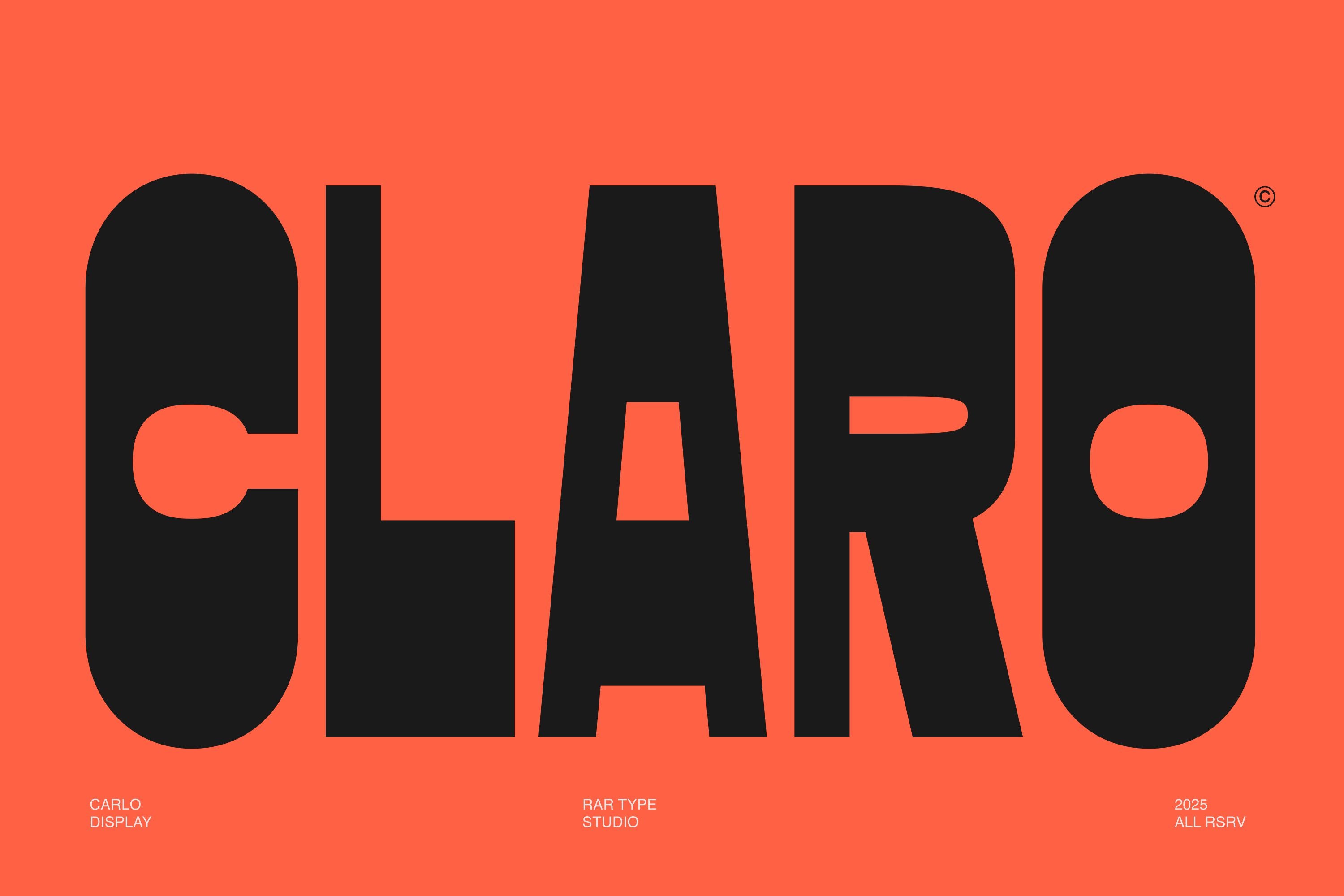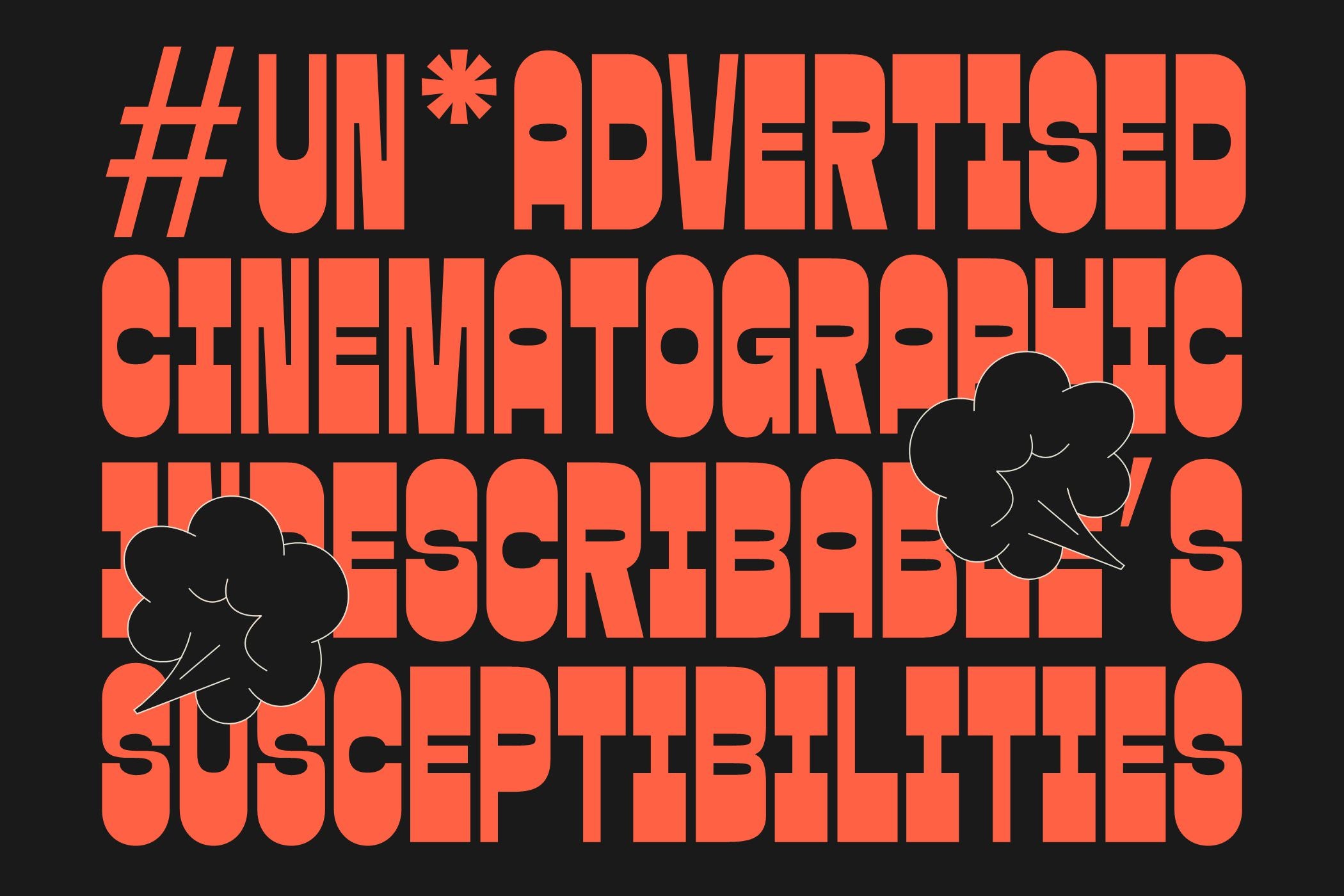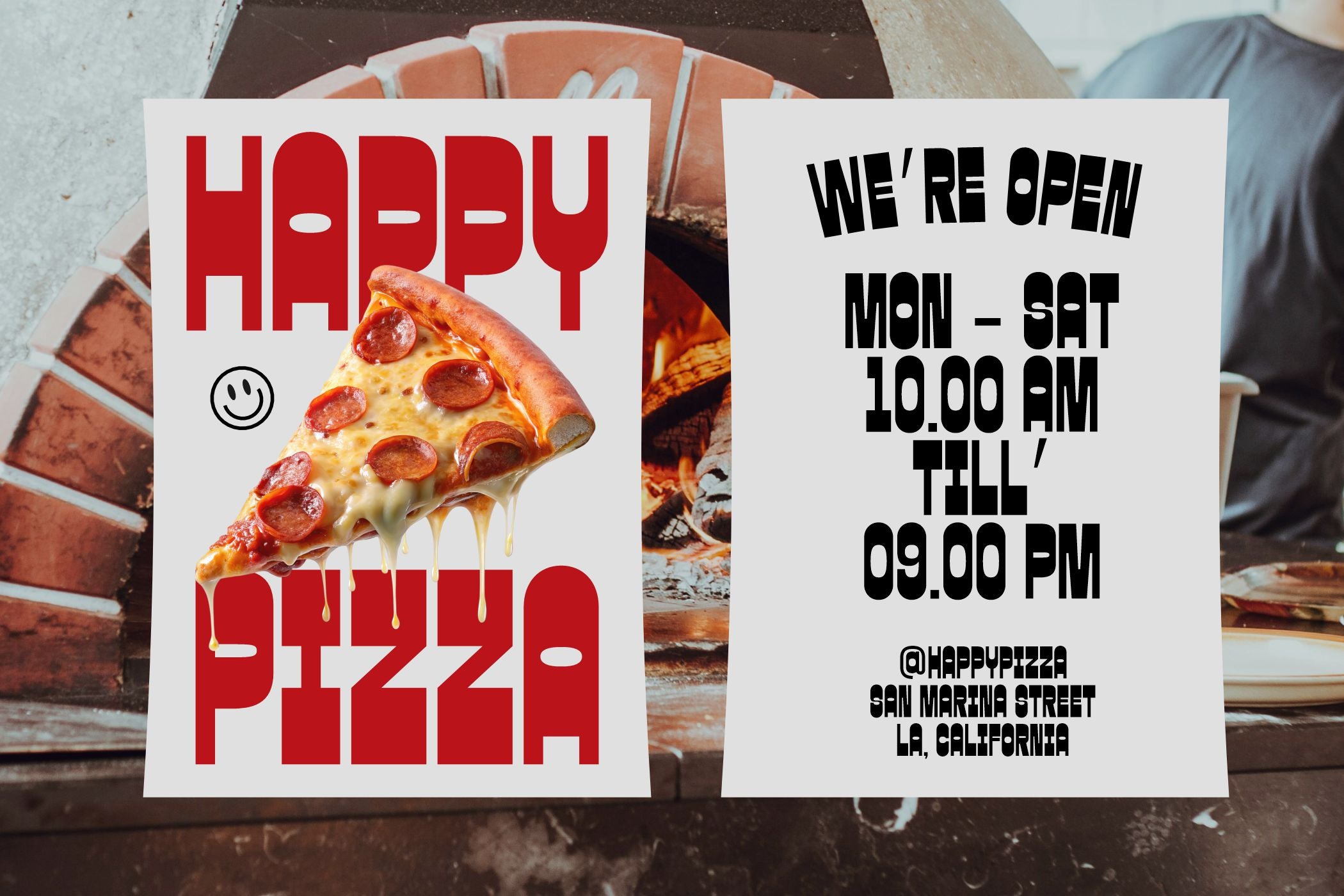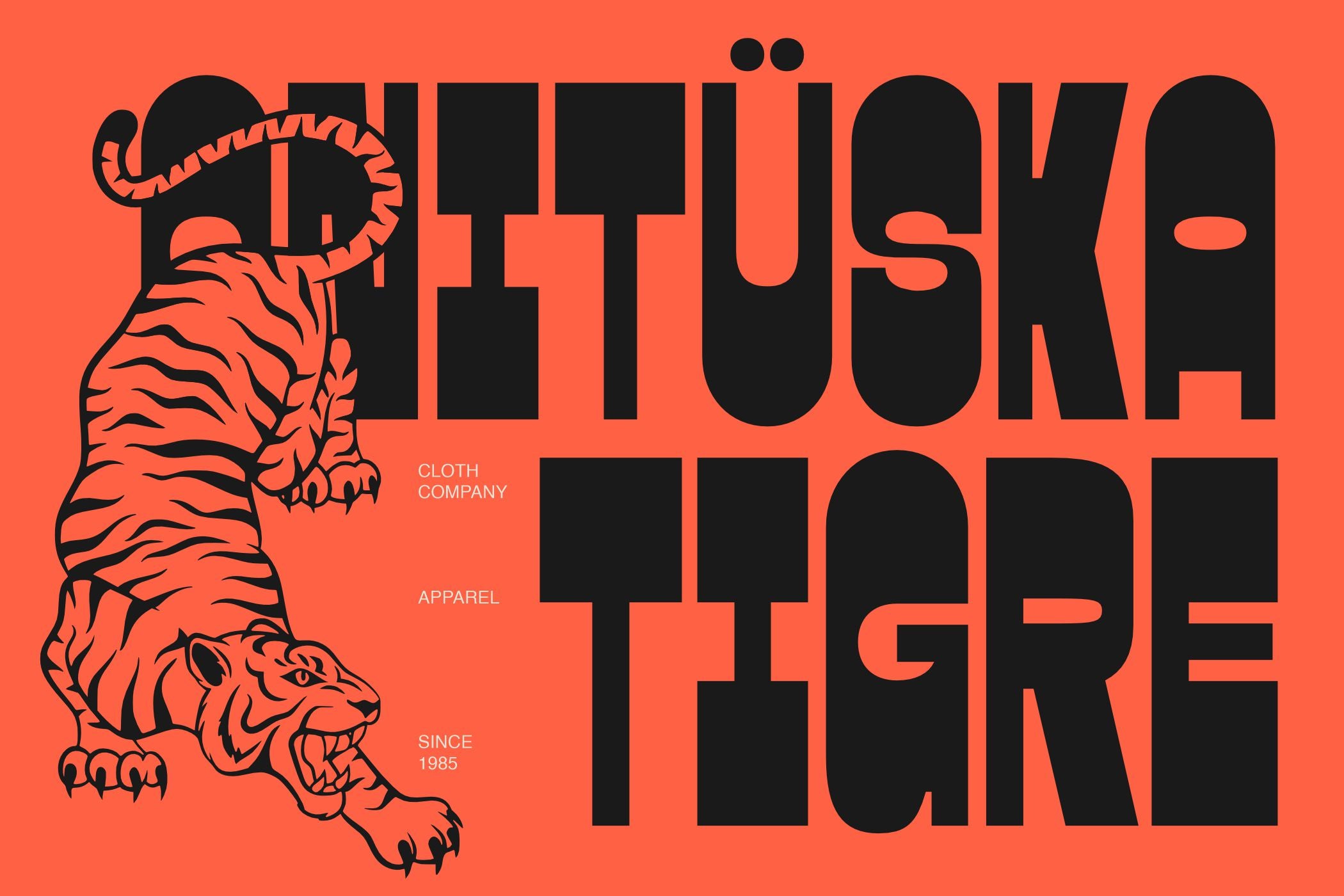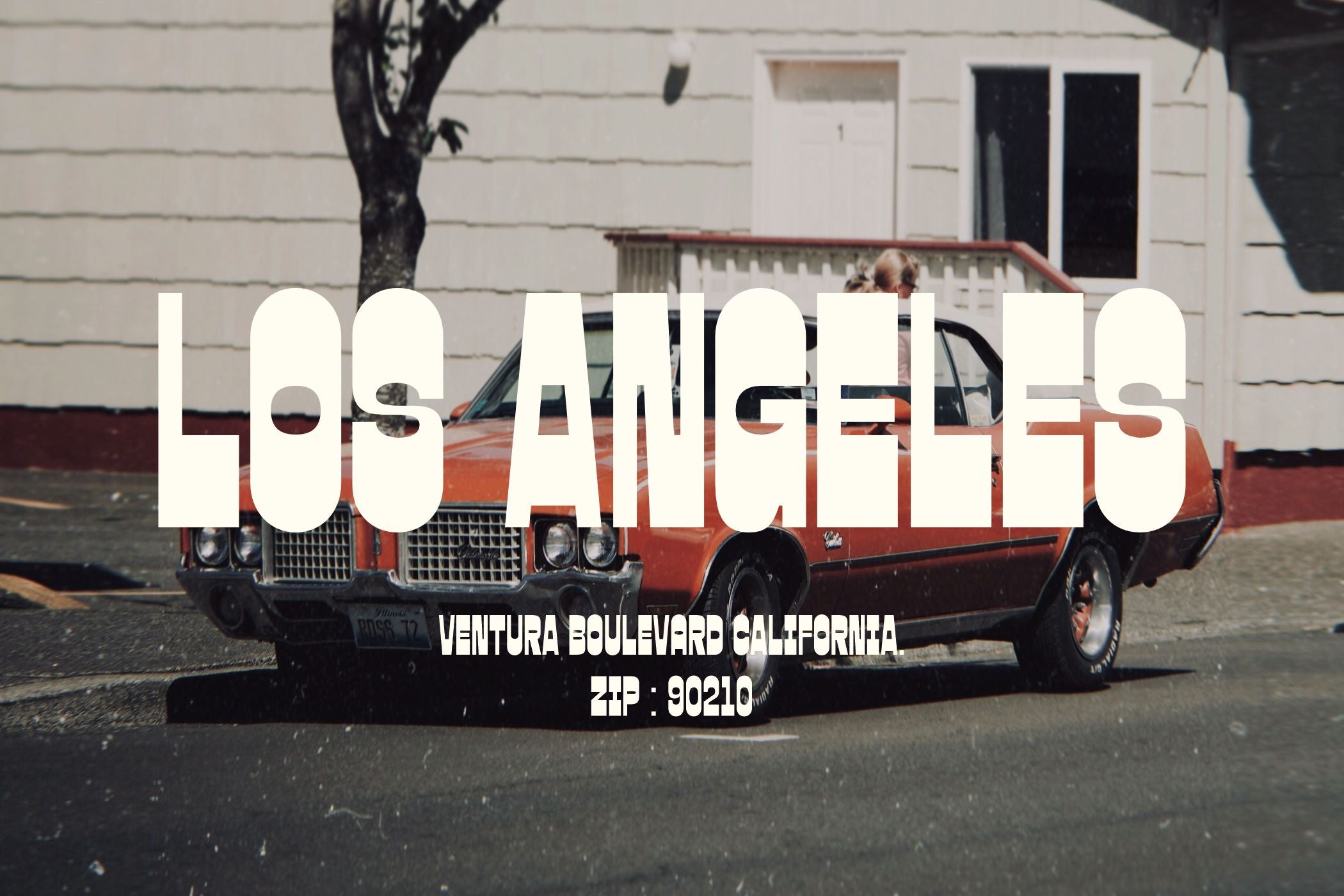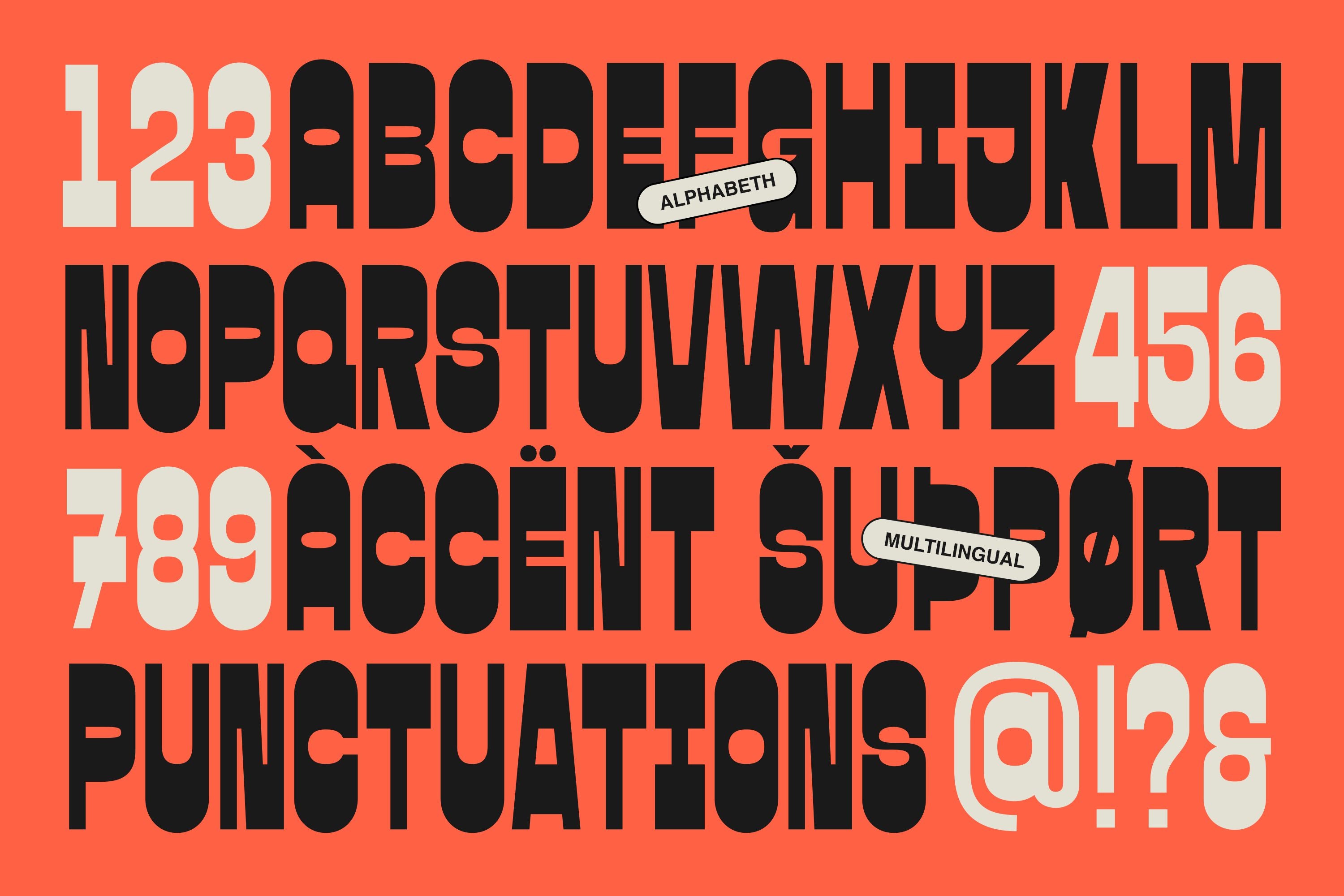
Claro Modern Display Bold Sans created by Rar Typeworks is a striking sans-serif typeface with a bold reverse contrast twist. Designed for visual impact, it flips traditional stroke dynamics, thick horizontals meet thin verticals, creating a unique rhythm and contemporary edge.
With clean lines, modern proportions, and a confident personality, Claro is perfect for editorial headlines, branding, posters, and any design that calls for bold distinction. Its reverse contrast style adds unexpected flair while maintaining clarity and legibility in display settings.